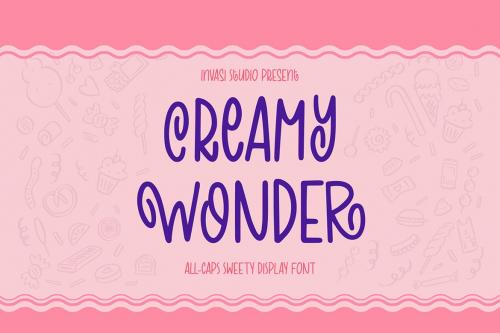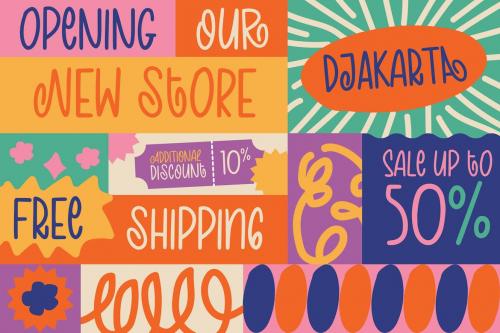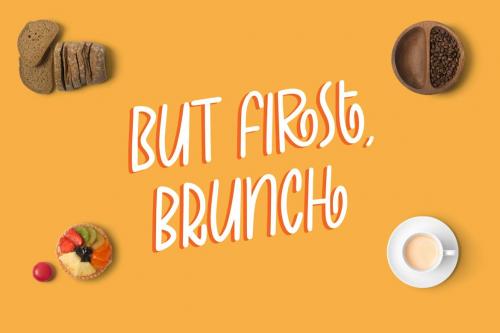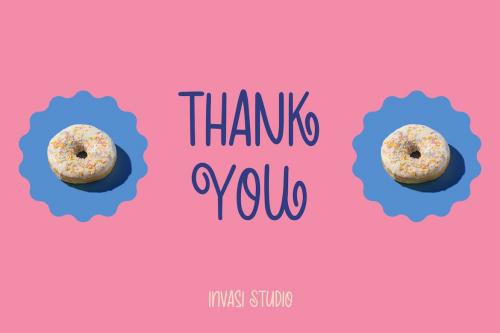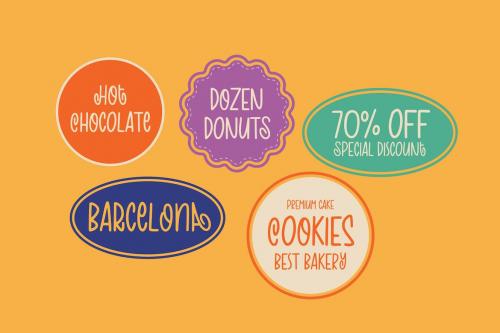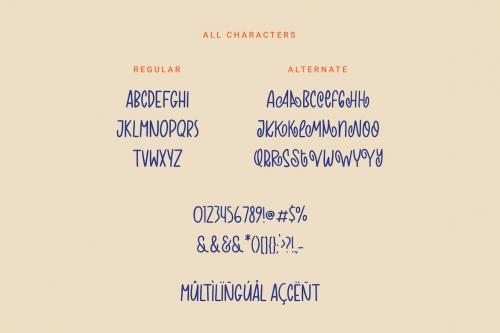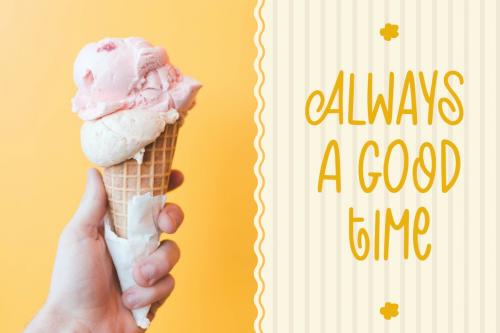
奶油奇迹 | 表情字体
Creamy Wonder | Display Font
Introduction our new Display Font. **A Creamy Wonder Font is an All-caps sweety display font with an elegant style font, special for your Display or Headline Design**, which puts a bold on your projects and will inspire you to create something unique or playful design. Creamy Wonder Font will help you to create special and touching typographical designs for your display quote projects, It is perfect for headings, flyers, greeting cards, product packaging, book cover, printed quotes, logotype, apparel design, album covers.
Introduction our new Display Font. **A Creamy Wonder Font is an All-caps sweety display font with an elegant style font, special for your Display or Headline Design**, which puts a bold on your projects and will inspire you to create something unique or playful design.
Creamy Wonder Font will help you to create special and touching typographical designs for your display quote projects, It is perfect for headings, flyers, greeting cards, product packaging, book cover, printed quotes, logotype, apparel design, album covers.
**Features:**
- Multilanguage
- Alternates
- Punctuation
- Ligature